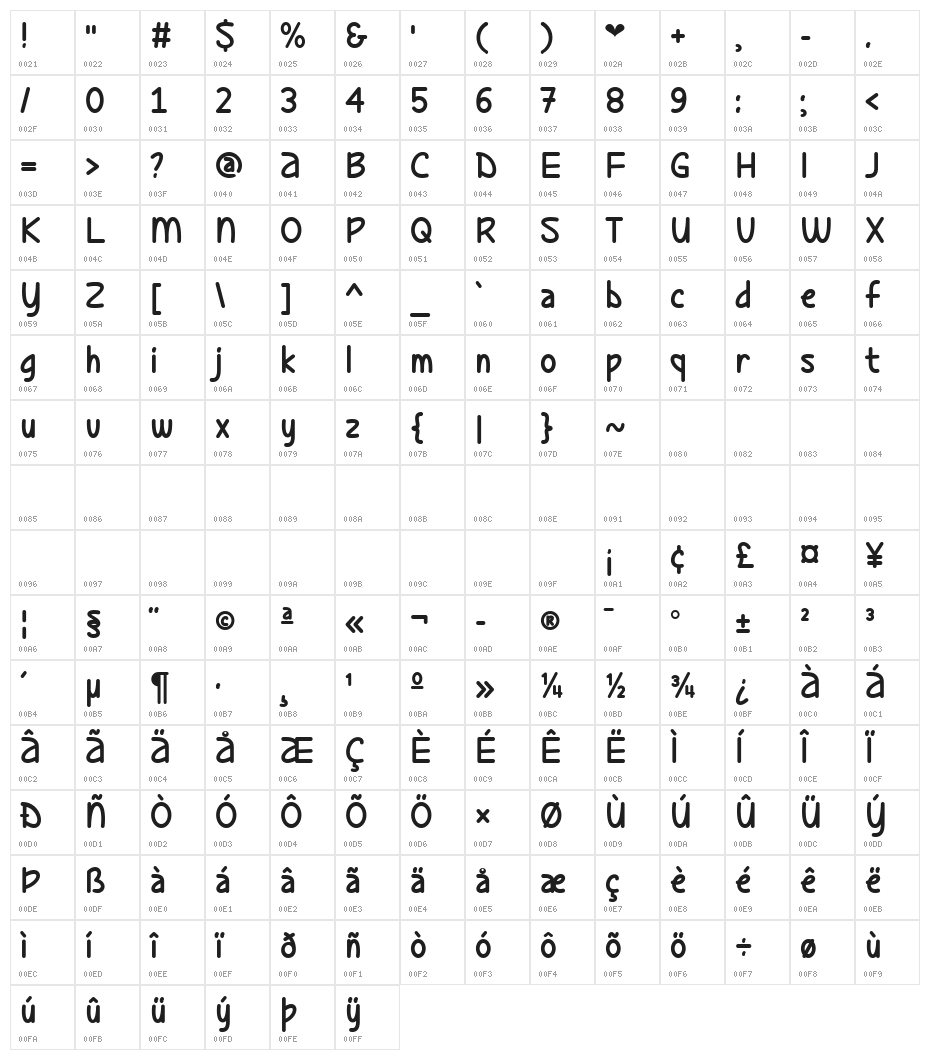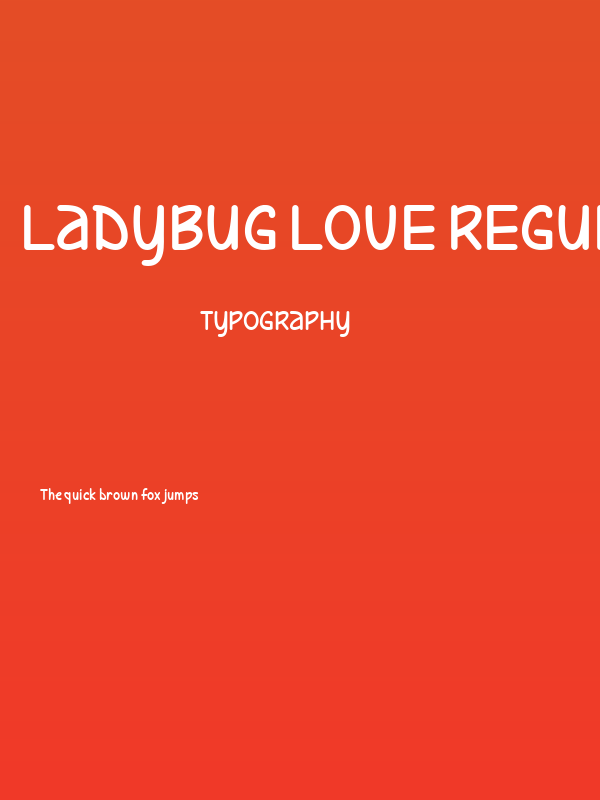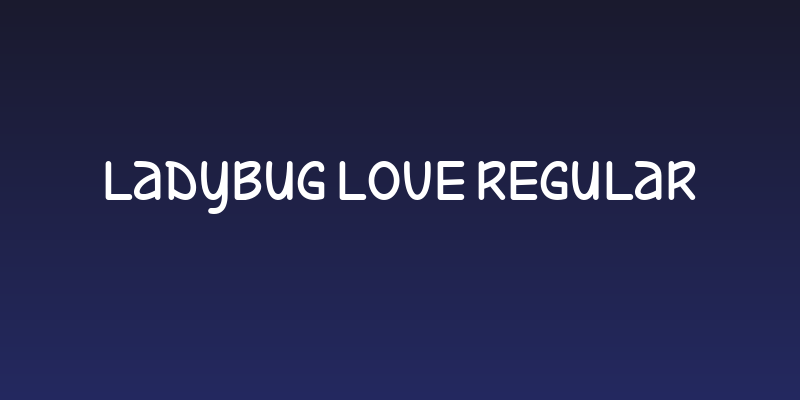
Ladybug Love Regular Font
Ladybug Love Regular Description
This playful and rounded font features a friendly and approachable style, characterized by its smooth curves and consistent stroke width. The letters have a uniform appearance with a slightly whimsical touch, making it ideal for projects that require a lighthearted and informal tone. The font maintains readability with its clear and distinct letterforms, suitable for both uppercase and lowercase text. The numerals and special characters are designed to match the overall aesthetic, ensuring a cohesive look across all text elements.
| Proposed Projects | Ideal for children's books, playful branding, greeting cards, and casual invitations. |